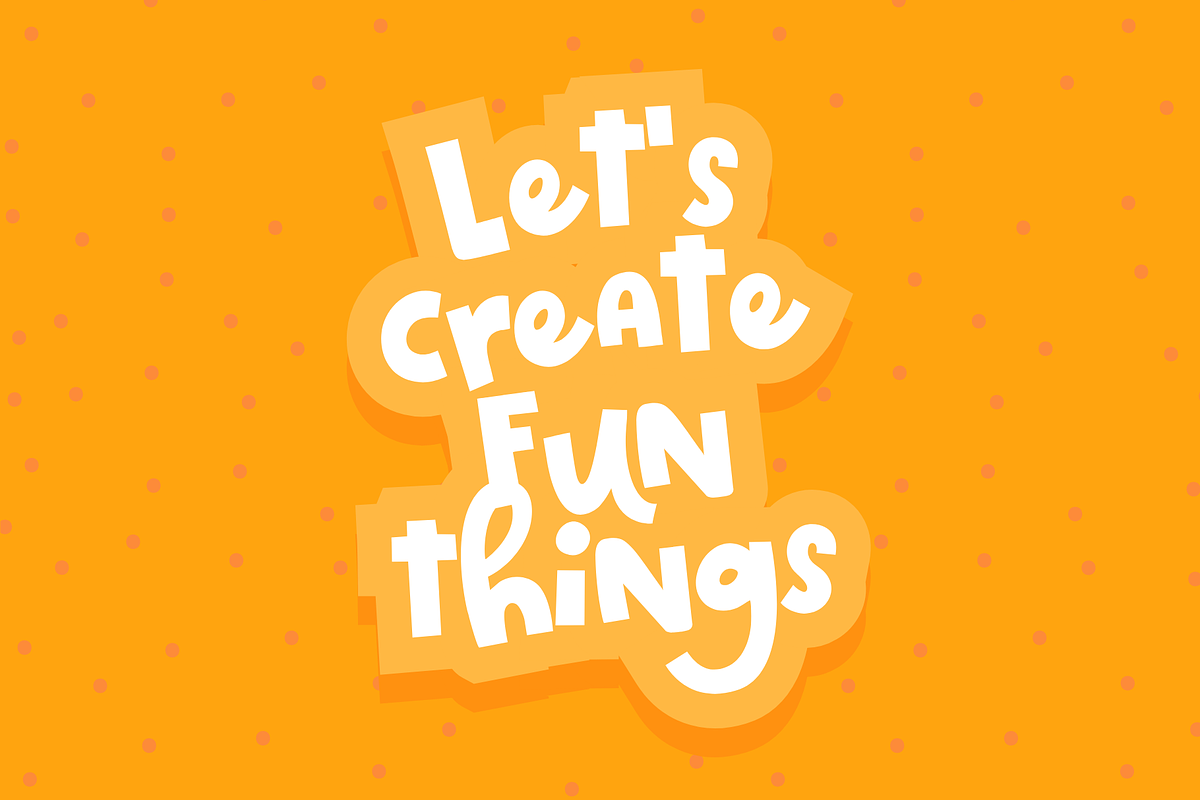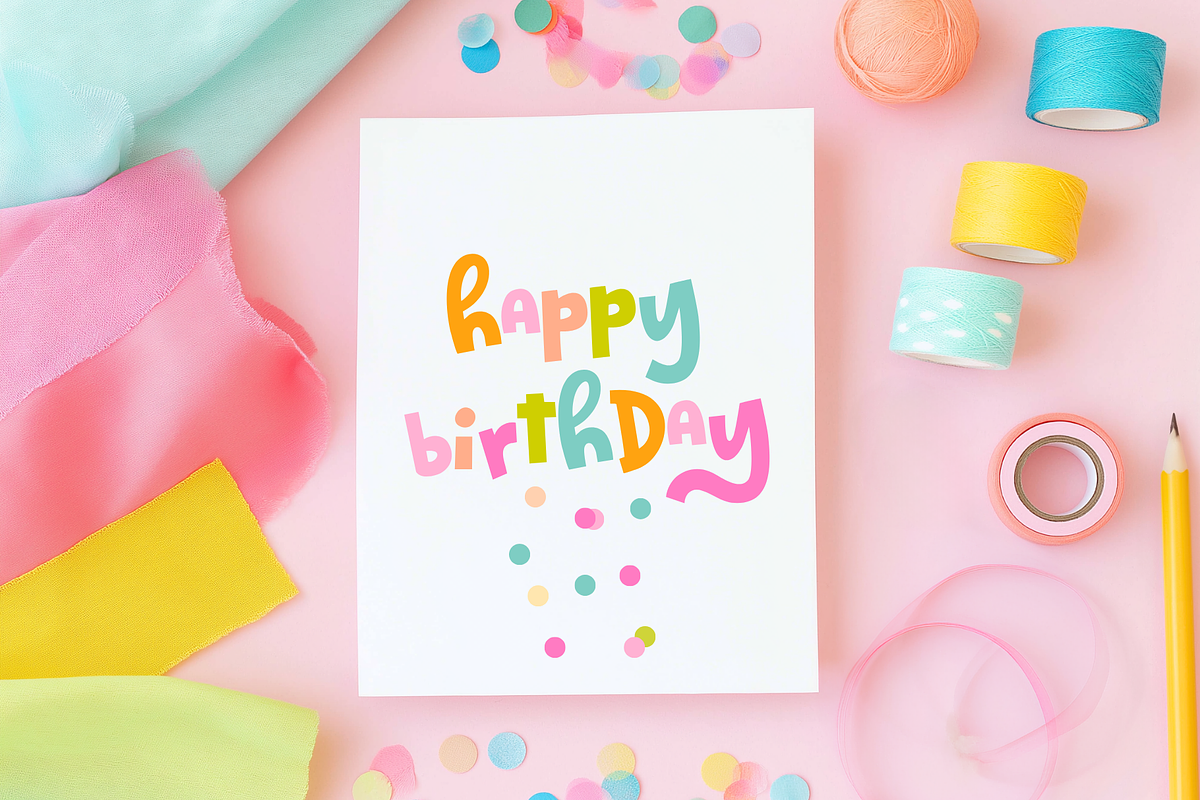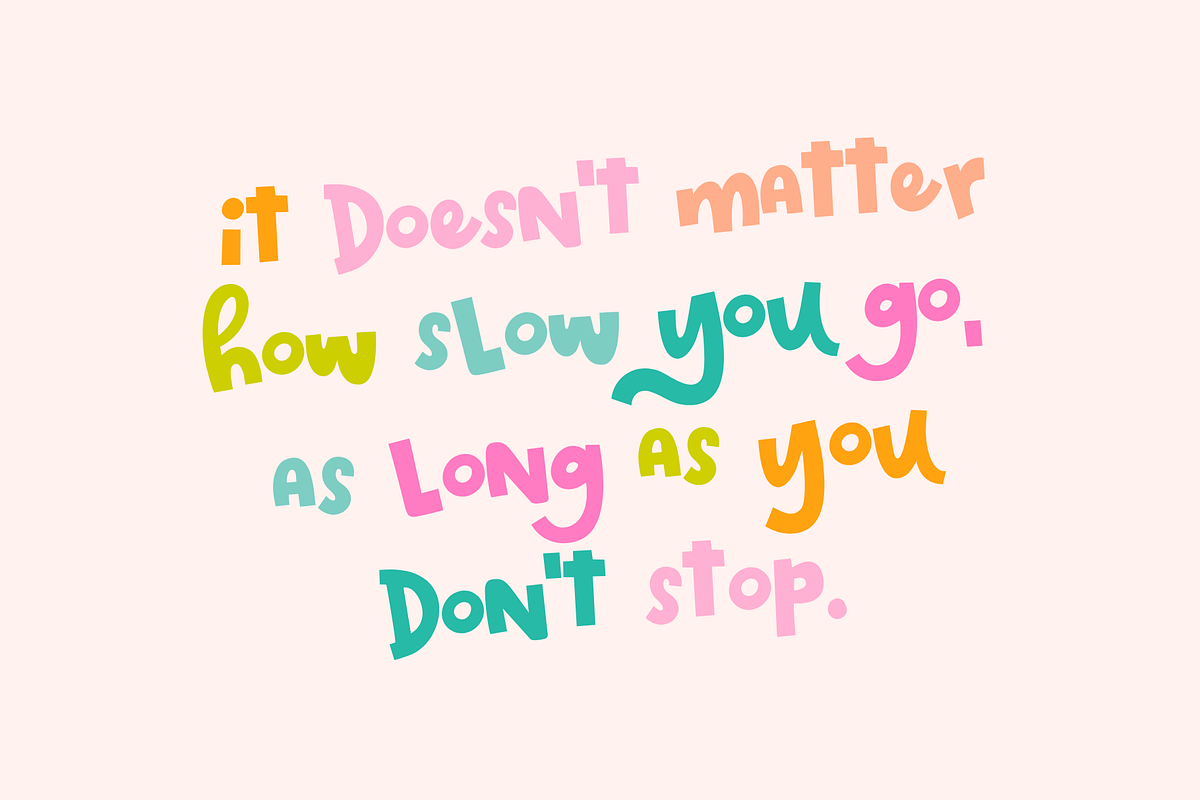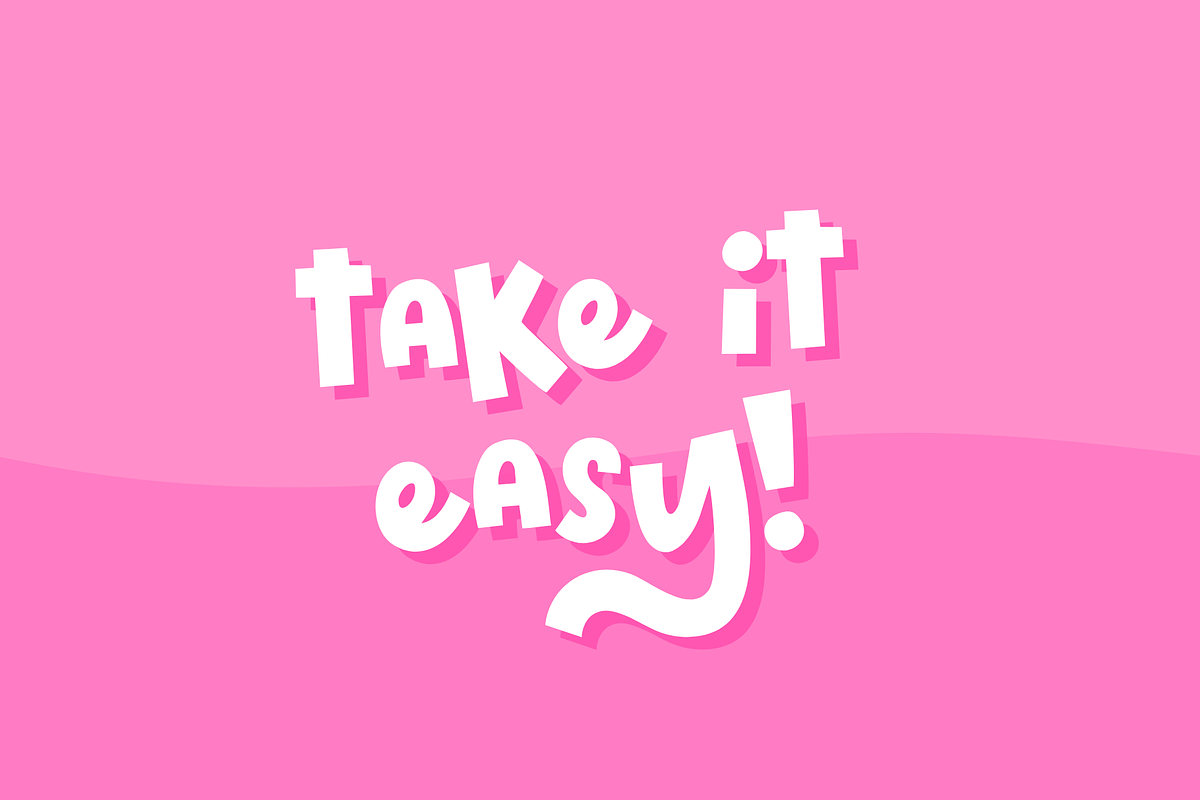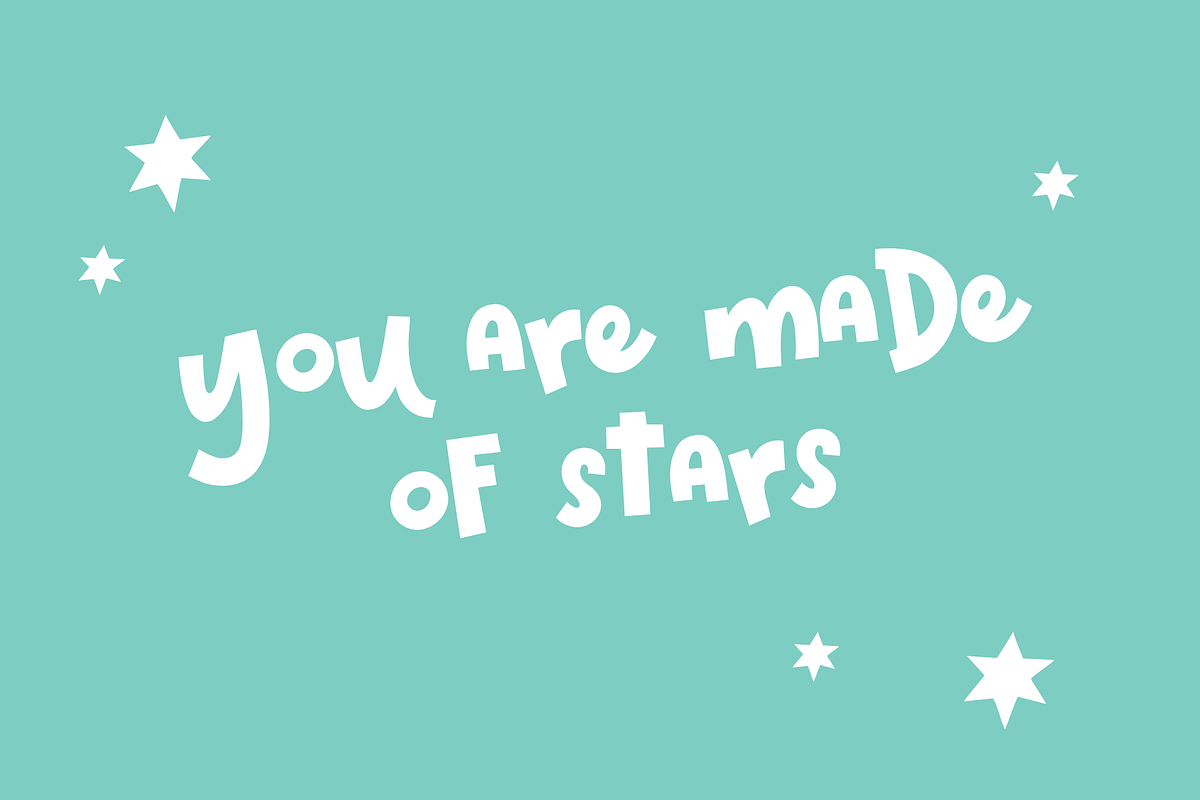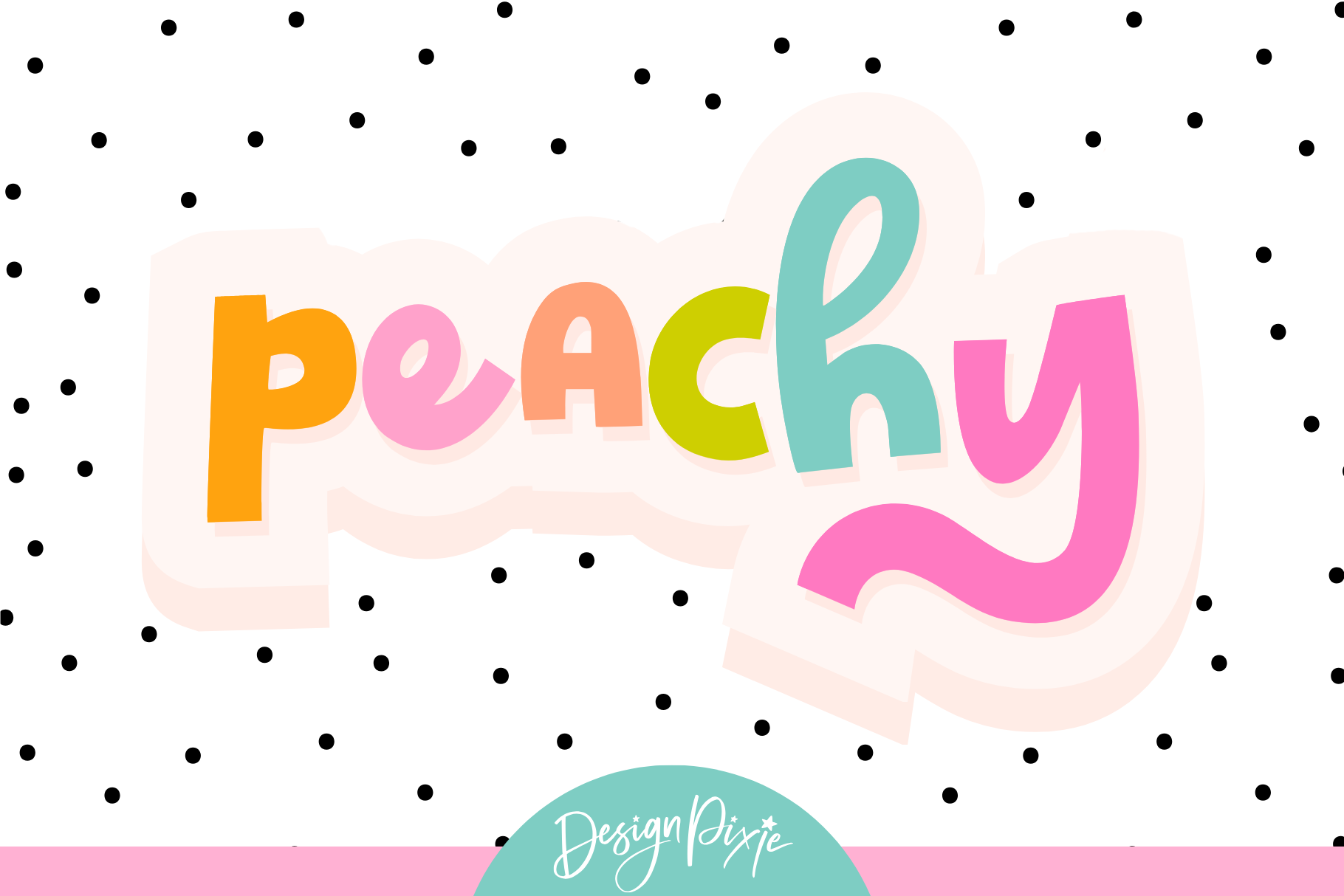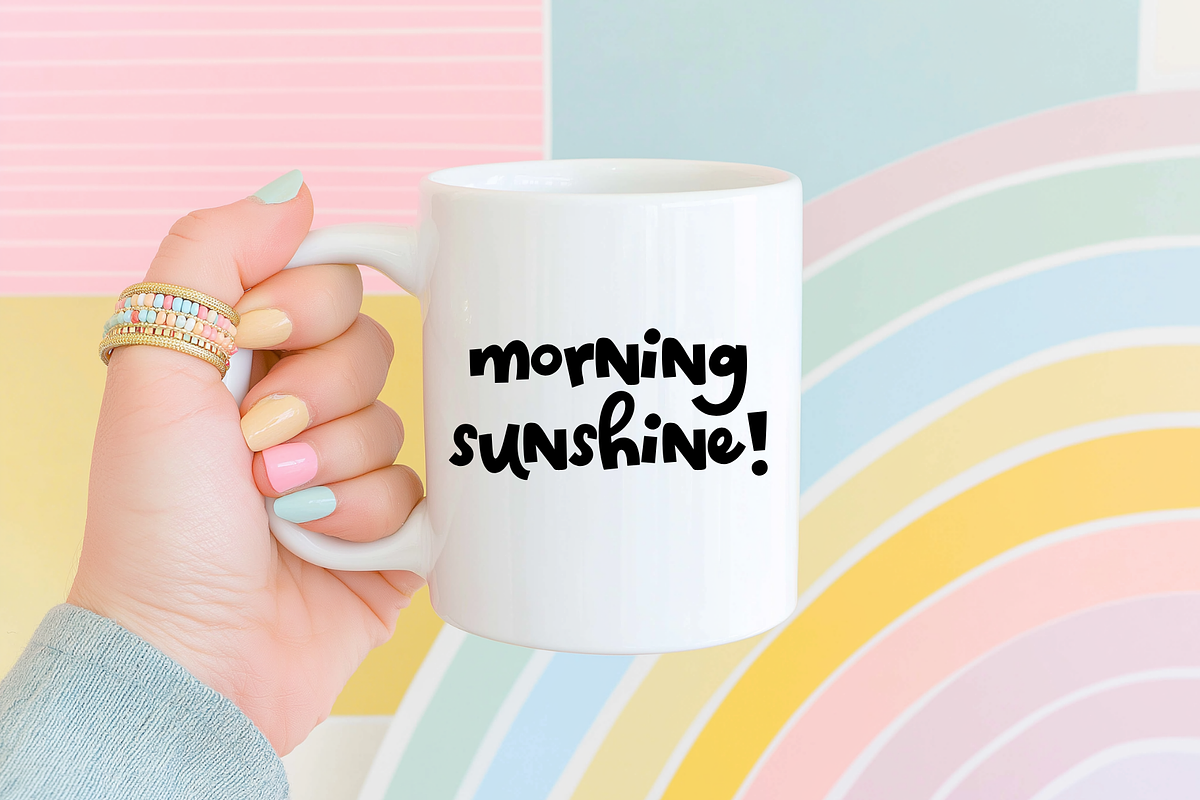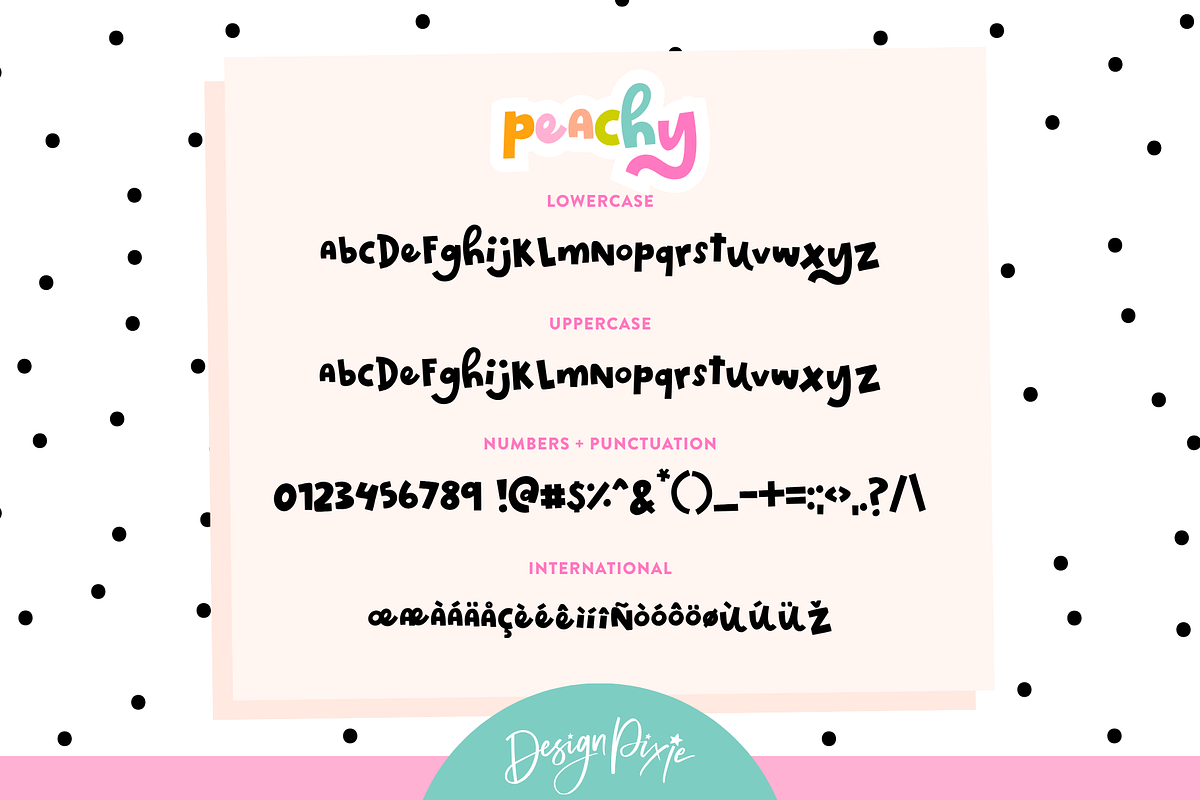
Peachy Font
Say hey to Peachy font - a super bold, stand-out handwritten typeface that knows how to grab attention. With chunky curves, confident strokes, and just the right amount of sass, Peachy was made for making statements.
Whether you’re designing logos, packaging, social media posts, or bold quote graphics, this font pops off the page (or screen) and brings instant personality to your work.
Why you’ll love Peachy:
Super bold and playful
Handwritten style with major impact
Designed to stand out in logos, headings, and graphics
Full of charm, confidence, and creative energy